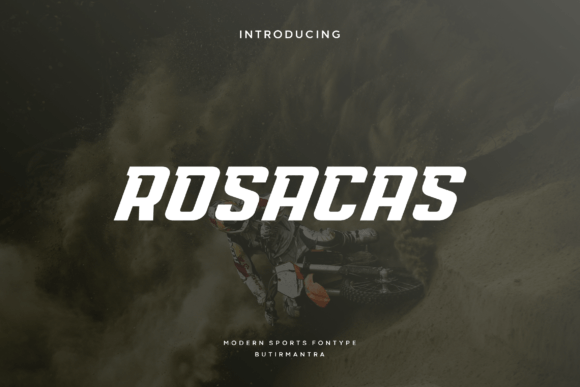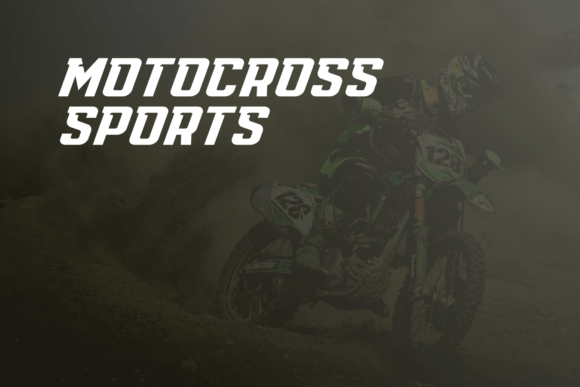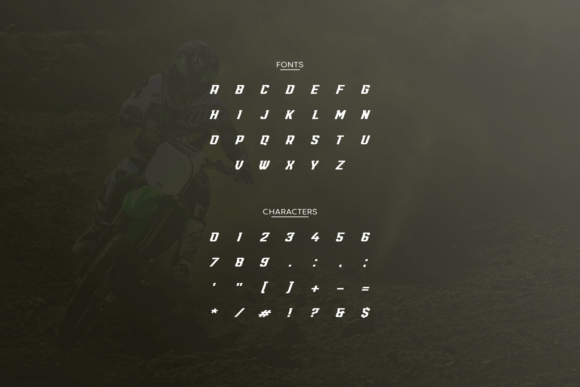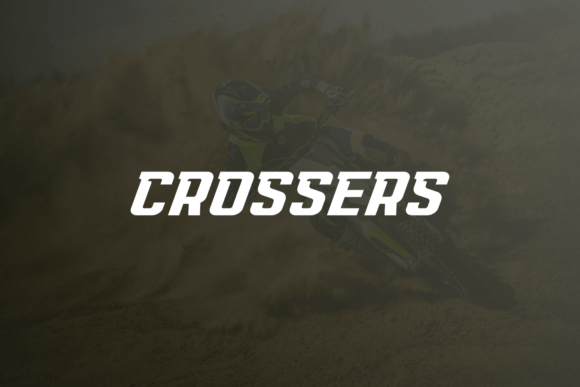
Rosacas Font: A Bold Sans Serif for Sporty Logo Design
About the Rosacas Font
Get ready to be inspired by Rosacas Font, a fresh and dynamic typeface for modern creators. Rosacas is a modern, sports-themed sans serif font. This font would be ideal for web design, business cards, or just about anything else that requires a unique touch.
Rosacas excels in headlines, logos, and short-form text applications like posters and signage where its bold, energetic personality shines. Its strong geometric forms make it highly legible at larger sizes, ideal for grabbing attention. However, its less-than-ideal x-height makes it unsuitable for extended body copy or UI elements requiring high readability at smaller sizes.
Pairing Rosacas effectively depends on the desired effect. For a powerful, modern feel, consider pairing it with a clean, geometric sans-serif like Montserrat or a sharply contrasting serif like Playfair Display. To soften its impact slightly, a neutral sans-serif such as Lato or a more rounded, friendly sans-serif like Open Sans would work well.
The font’s overall personality is definitively bold and active, reflecting speed and dynamism. It is best suited for brands and projects conveying themes of sport, competition, technology, or a similarly energetic and modern aesthetic.
Rosacas Font Usage Examples
Rosacas Font Example